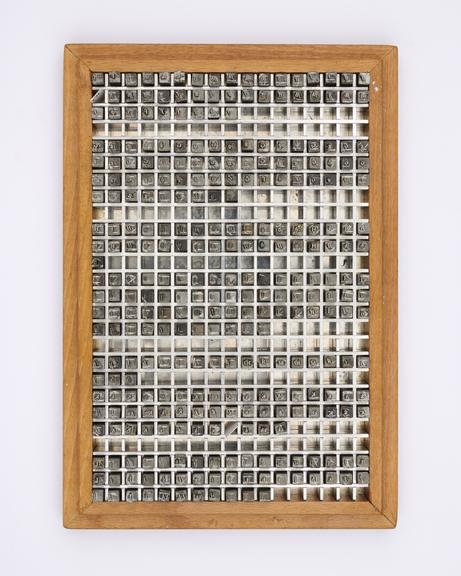
0.2 inch composition punches for Times New Roman (typeface series number: 327)
0.2 inch composition punches for Times New Roman (typeface series number: 327), font size 7. The box is marked with suffix Special Letters f-l meaning Special Letters f-l. In an original wooden box. Manufactured by Monotype Corporation.
A Monotype punch is made by tracing a pattern on a vertical pantograph machine. It is an engraved piece of hardened steel of a reverse-reading type character (letter, numeral or ornament) in relief from which the matrices are made. After cutting, the face of the punch was ground to the correct measurements denoted on the relevant chart. The punch was stamped into a piece of phosphor bronze that made a matrix from which type could be cast. Punches were made in standard sizes: 0.2" x 0.2", 0.4" x 0.4", 1" x 1", or 1" x 1.35". If a Monotype punch became damaged it could be replaced, identically, using the pattern.
Times New Roman was created by the esteemed typographer Stanley Morison, designer Victor Lardent and The Monotype Corporation. Morison had been challenged to produce a typeface for The Times newspaper that was economical with space and yet still highly legibility on newsprint pages. The first issue of the newspaper to use Times New Roman was 3 October 1932. The typeface was released commercially in 1933 and the Times New Roman family became one of the most widely used typefaces for books, journals and jobbing printing.
The typeface is narrow in relation to its large x-height. Its strong colour is given a crisp appearance by the sharply cut small serifs and subtle shading. Both Times New Roman and its companion bold combine vertical and diagonal stress. Capitals are vertically stressed, while the lowercase stress is mainly diagonal. The thickest parts of c and e are very low down. Counters are kept clean and open, and characteristic letterforms remain strong and legible even in the smallest sizes. The g has a wide tail. The capitals, being no higher than the short ascenders, are small and unobtrusive. The italic has a moderate inclination and has the serifs of the roman.
The Monotype Corporation made 24 series for the Times family in metal type including: a wide version, a semi-bold, an extended titling, four Greek series, a special version for small newspaper ads and a modified version with longer descenders for book work. The typeface had a full range of Cyrillic characters and what was at the time the largest range of accented characters for languages using the Latin alphabet.
Times New Roman was quickly licensed and produced by Linotype, Monotype’s main rival in mechanical typesetting systems. Years later other typesetting system manufacturers, and traditional typefounders Stephenson Blake, offered the typeface too. Times New Roman comes pre-installed as a core font with Windows and Mac computers and was the default font in English-language versions of Microsoft Word for many years. In 2004 the US State Department started using it on most of its documents. It is still available on personal computers for use by millions of people around the world. Times New Roman has had the greatest impact of any twentieth-century roman typeface.